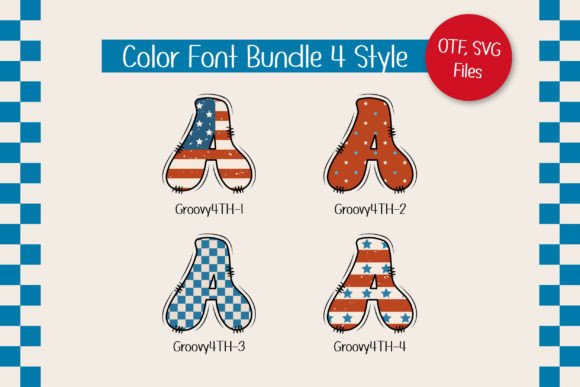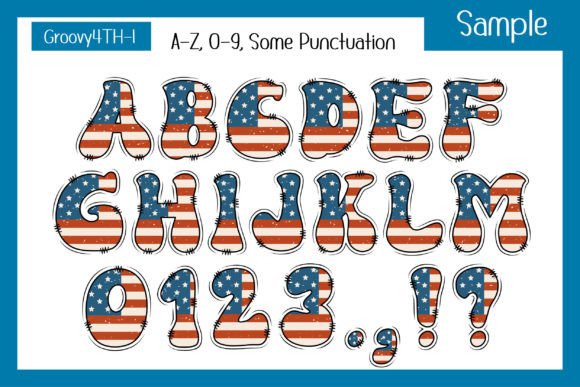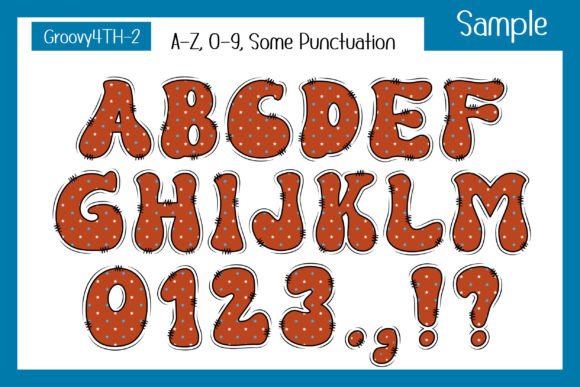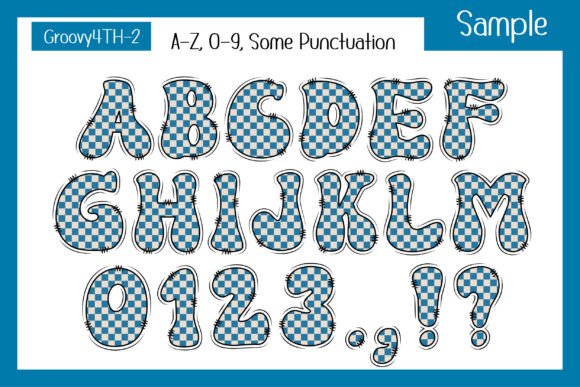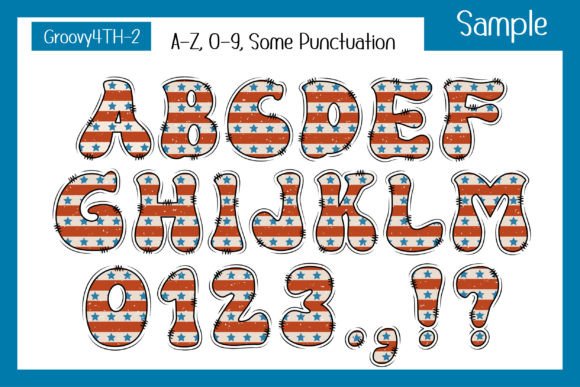
Introduction to Groovy 4th of July Font
Introducing “Groovy 4th of July” a vibrant color font set that captures the essence of Independence Day with a retro twist.
This playful font combines the nostalgic charm of groovy retro style with the patriotic spirit of the 4th of July, featuring fun and quirky lettering paired with the iconic pattern of the American flag With 4 font styles and 20 bonus matching clip art pieces, “Groovy 4th of July” offers endless creative possibilities for custom DIY craft projects, personalized names, sublimations, posters, and more.
Key Features of Groovy 4th of July Font